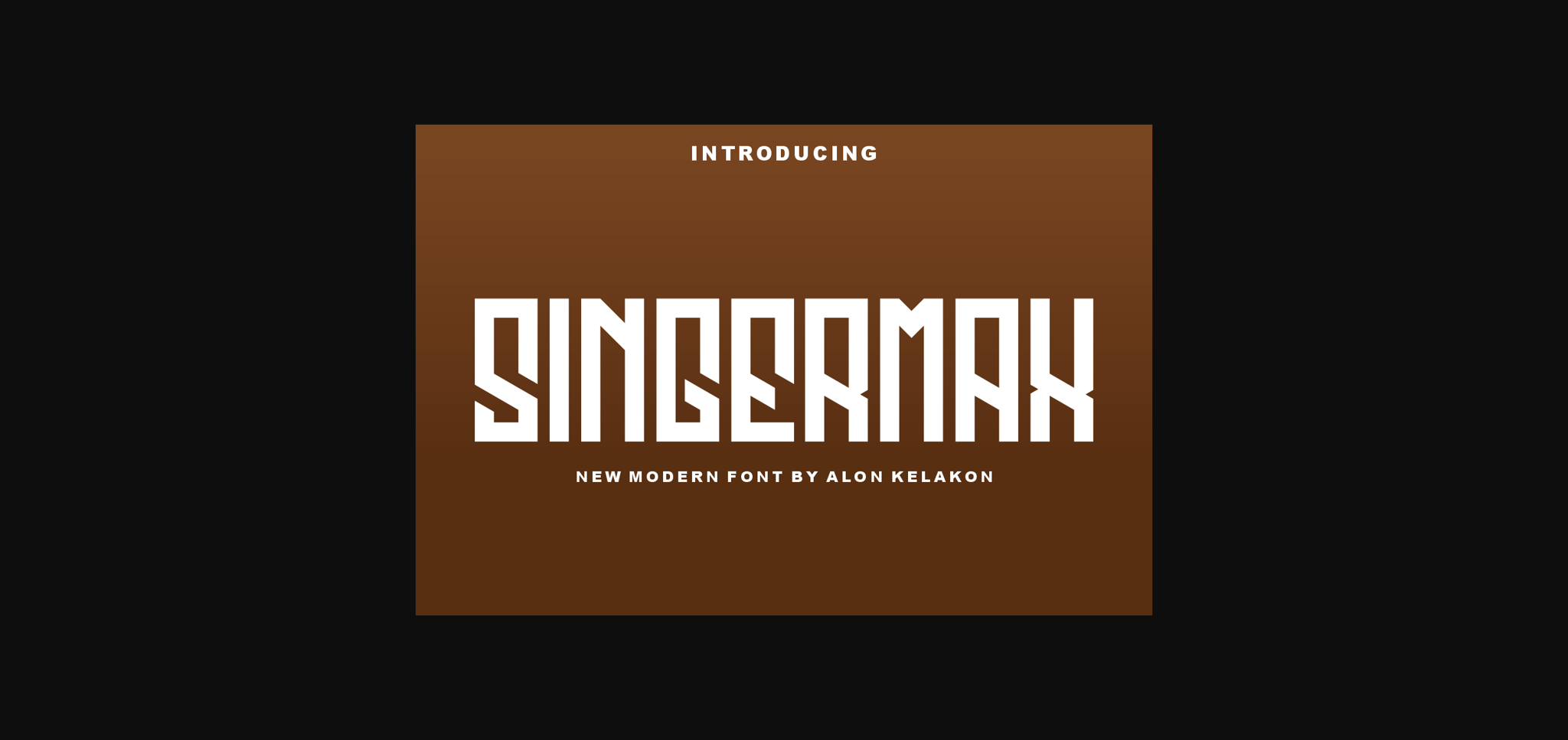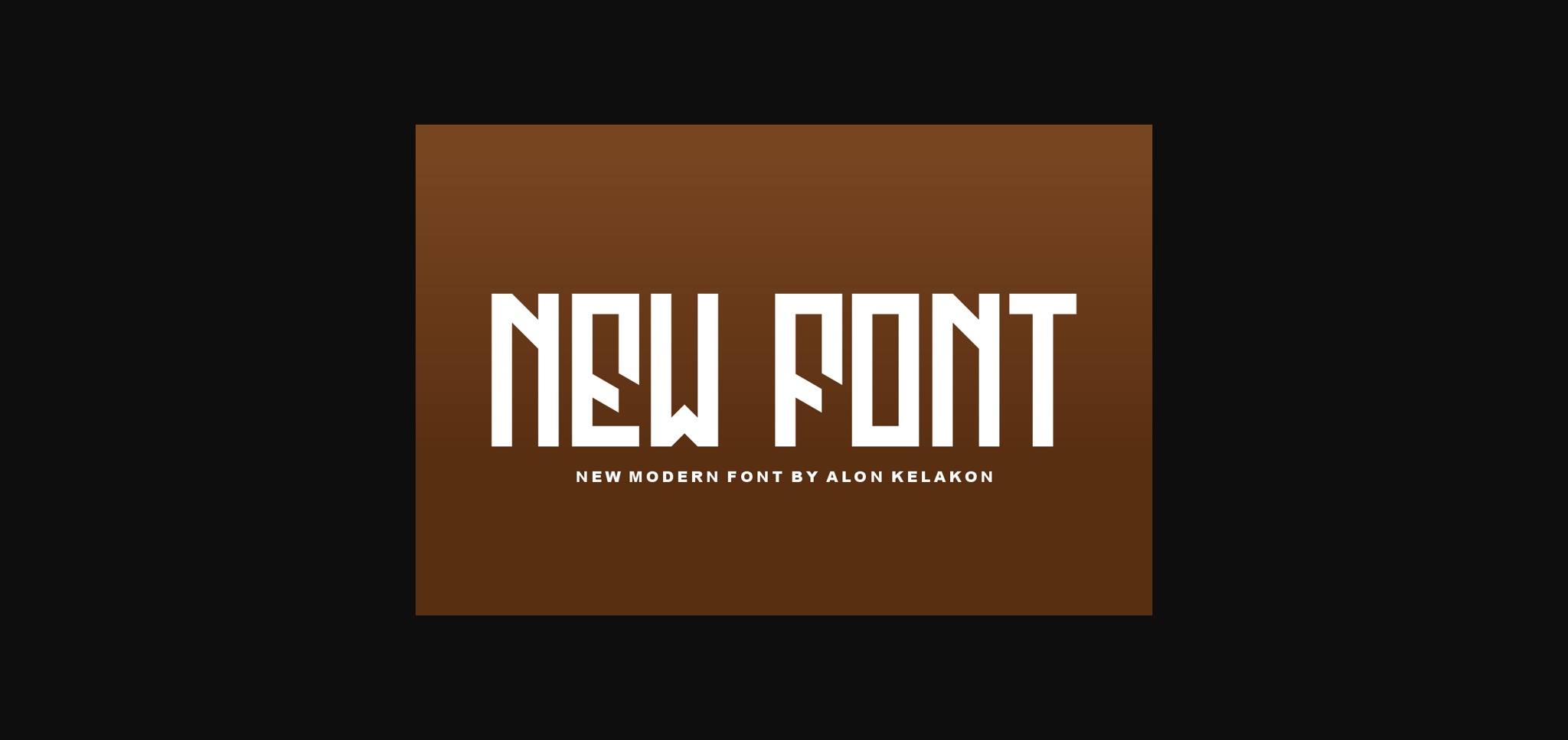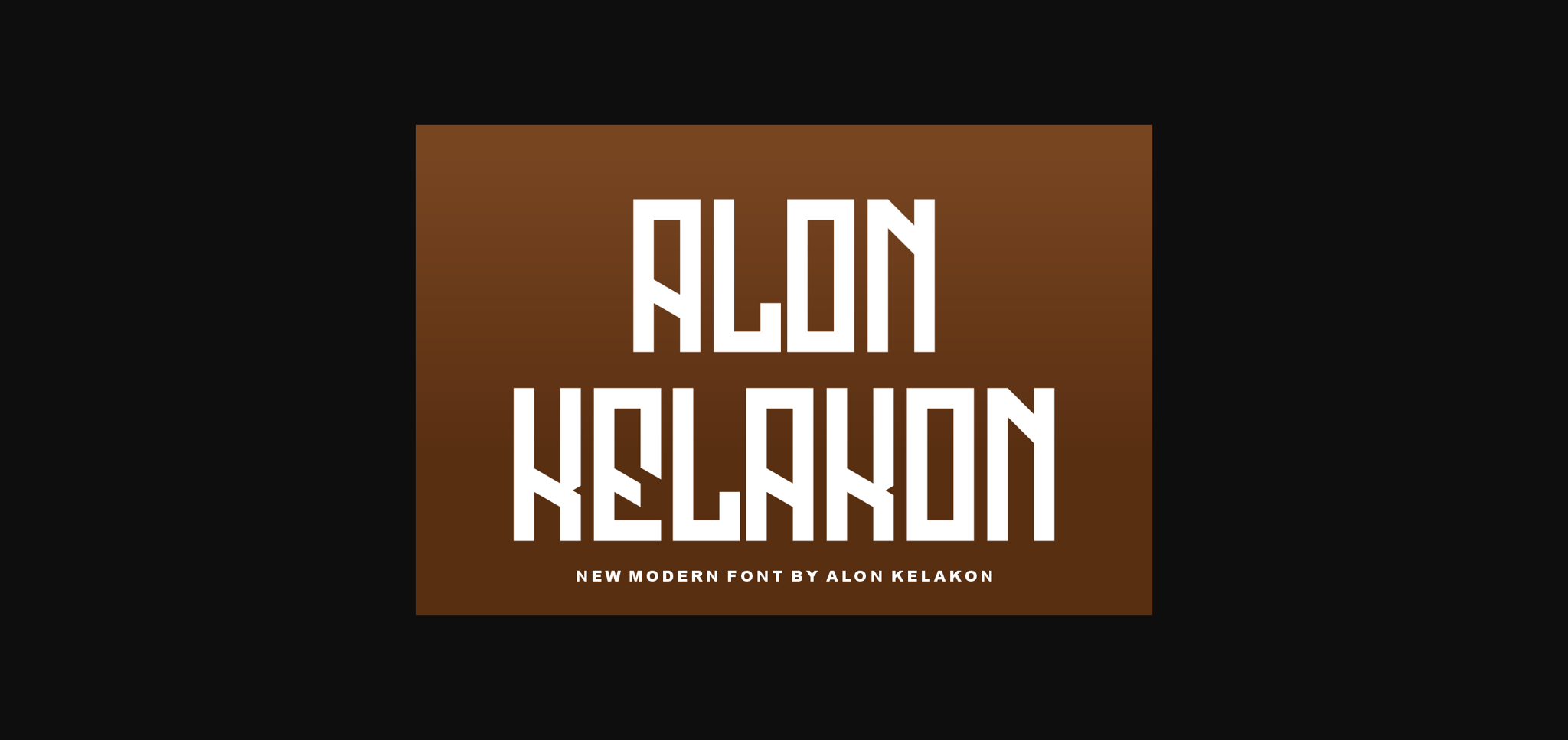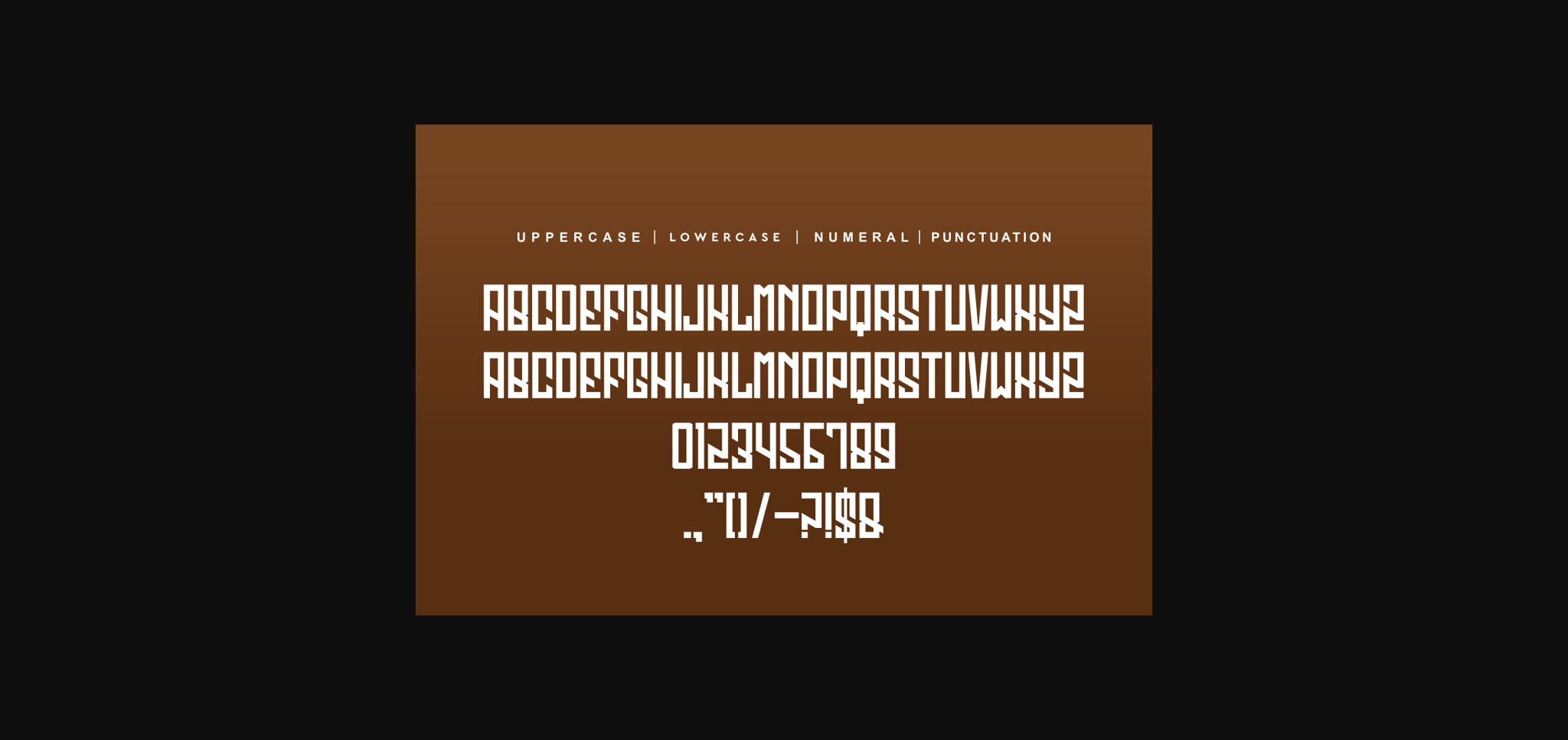
HomeSans Serif FontsSingermax Font Sans Serif Fonts Singermax Font FacebookXPinterestWhatsApp 1 of 7 ... Singermax Font Poster 2... Singermax Font Poster 3... Singermax Font Poster 4... Singermax Font Poster 5... Singermax Font Poster 6... Singermax Font Poster 7... About Singermax Font Singermax is a unique sans serif, ready to use for your design like labeling, clothing, movie scenes, poster, movie titles, gigs, album covers, logos, and much more. DOWNLOAD NOW People also explored Winter Graffiti Font Montthana Font Alanastri Font Harahel Font Arbetia Pineberry Font Flowers Inside Font Sweet Valentine Font Buckthorn 437 0 TagsSingermax Font Previous articleAster FontNext articleKotta Font LEAVE A REPLY Cancel reply Comment: Please enter your comment! Name:* Please enter your name here Email:* You have entered an incorrect email address! Please enter your email address here Website: Save my name, email, and website in this browser for the next time I comment. Personal Use Free Omellia Personal Use Free Read more about this font Rogueland Personal Use Free Read more about this font Ammanda Personal Use Free Read more about this font Electroharmonix Personal Use Free Read more about this font BLOG 5 Fonts That Will Dominate Design Trends in 2026 5 Fonts for 2026 That Will Dominate Design Trends Typography plays a critical role in visual communication, and as we look ahead to 2026, it’s... Free vs Paid Fonts: Why Investing in Premium Fonts Is Worth It Exploring Font Trends How to Install and Use Fonts on Windows, macOS, and Web Projects